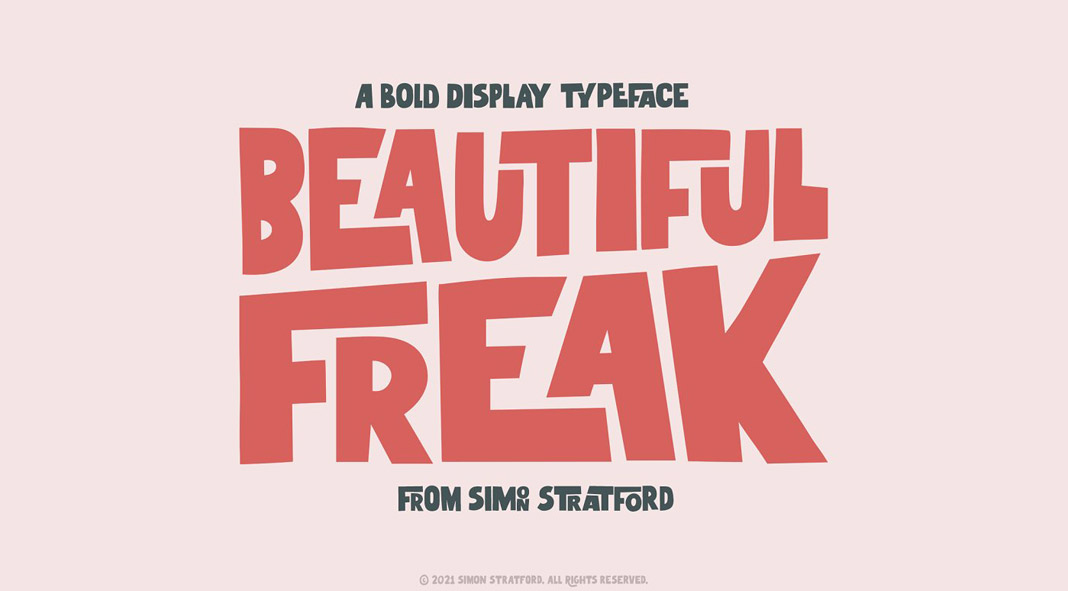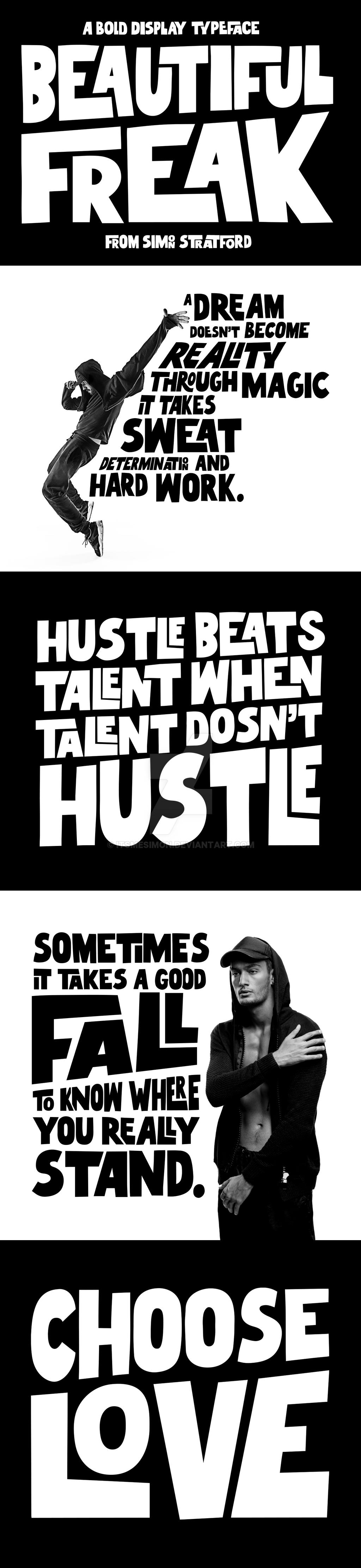
Beautiful Freak Font - This font features bold, playful characters with. Beautiful freak font has a bright, energetic look. Download beautiful freak, a modern bold, quirky display font with a fun, trendy street style vibe. Beautiful freak, a bold, fun, quirky display typeface packed with personality. Learn how to use its alternatives, ligatures and.
This font features bold, playful characters with. Learn how to use its alternatives, ligatures and. Beautiful freak font has a bright, energetic look. Download beautiful freak, a modern bold, quirky display font with a fun, trendy street style vibe. Beautiful freak, a bold, fun, quirky display typeface packed with personality.
Beautiful freak font has a bright, energetic look. This font features bold, playful characters with. Learn how to use its alternatives, ligatures and. Download beautiful freak, a modern bold, quirky display font with a fun, trendy street style vibe. Beautiful freak, a bold, fun, quirky display typeface packed with personality.
Beautiful Freak Font a fun bold quirky display typeface
Learn how to use its alternatives, ligatures and. Download beautiful freak, a modern bold, quirky display font with a fun, trendy street style vibe. This font features bold, playful characters with. Beautiful freak font has a bright, energetic look. Beautiful freak, a bold, fun, quirky display typeface packed with personality.
Beautiful Freak Font a fun bold quirky display typeface
Beautiful freak font has a bright, energetic look. This font features bold, playful characters with. Learn how to use its alternatives, ligatures and. Beautiful freak, a bold, fun, quirky display typeface packed with personality. Download beautiful freak, a modern bold, quirky display font with a fun, trendy street style vibe.
Beautiful Freak Font a fun bold quirky display typeface
This font features bold, playful characters with. Download beautiful freak, a modern bold, quirky display font with a fun, trendy street style vibe. Learn how to use its alternatives, ligatures and. Beautiful freak font has a bright, energetic look. Beautiful freak, a bold, fun, quirky display typeface packed with personality.
Beautiful Freak Font by Simon Stratford
Learn how to use its alternatives, ligatures and. Download beautiful freak, a modern bold, quirky display font with a fun, trendy street style vibe. Beautiful freak, a bold, fun, quirky display typeface packed with personality. This font features bold, playful characters with. Beautiful freak font has a bright, energetic look.
Beautiful Freak Font by itsmesimon on DeviantArt
Download beautiful freak, a modern bold, quirky display font with a fun, trendy street style vibe. Beautiful freak font has a bright, energetic look. Learn how to use its alternatives, ligatures and. This font features bold, playful characters with. Beautiful freak, a bold, fun, quirky display typeface packed with personality.
Beautiful Freak Font a fun bold quirky display typeface
Download beautiful freak, a modern bold, quirky display font with a fun, trendy street style vibe. Beautiful freak, a bold, fun, quirky display typeface packed with personality. Beautiful freak font has a bright, energetic look. This font features bold, playful characters with. Learn how to use its alternatives, ligatures and.
Download beautiful freak, a modern bold, quirky display font with a fun, trendy street style vibe. Beautiful freak, a bold, fun, quirky display typeface packed with personality. This font features bold, playful characters with. Beautiful freak font has a bright, energetic look. Learn how to use its alternatives, ligatures and.
Beautiful Freak Font a fun bold quirky display typeface
Download beautiful freak, a modern bold, quirky display font with a fun, trendy street style vibe. This font features bold, playful characters with. Beautiful freak, a bold, fun, quirky display typeface packed with personality. Learn how to use its alternatives, ligatures and. Beautiful freak font has a bright, energetic look.
Beautiful Freak Font a fun bold quirky display typeface
Learn how to use its alternatives, ligatures and. Download beautiful freak, a modern bold, quirky display font with a fun, trendy street style vibe. Beautiful freak font has a bright, energetic look. This font features bold, playful characters with. Beautiful freak, a bold, fun, quirky display typeface packed with personality.
Beautiful Freak Font a fun bold quirky display typeface
Learn how to use its alternatives, ligatures and. Beautiful freak font has a bright, energetic look. This font features bold, playful characters with. Download beautiful freak, a modern bold, quirky display font with a fun, trendy street style vibe. Beautiful freak, a bold, fun, quirky display typeface packed with personality.
Download Beautiful Freak, A Modern Bold, Quirky Display Font With A Fun, Trendy Street Style Vibe.
Beautiful freak, a bold, fun, quirky display typeface packed with personality. Learn how to use its alternatives, ligatures and. Beautiful freak font has a bright, energetic look. This font features bold, playful characters with.